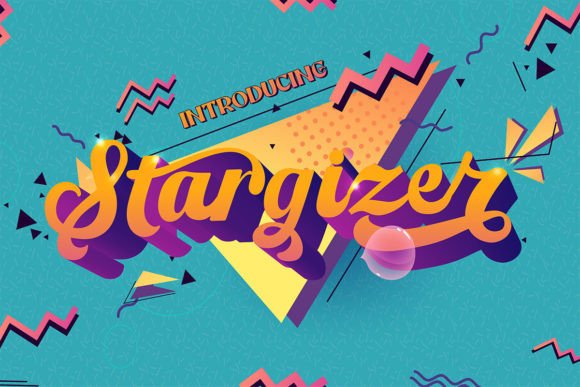
Stargizer Font
Get ready to ignite your creativity with Stargizer Font, the retro-inspired script font that will elevate your designs to the next level! With its captivating handwritten style and timeless appeal, Stargizer is the perfect choice for adding an instant dose of charm and character to your projects.
Immerse yourself in the world of the 60s and 80s as you explore the enchanting curves and strokes of Stargizer. Crafted with meticulous attention to detail, each letter exudes a vintage flair that will make your designs stand out from the crowd. Unleash your imagination and let Stargizer transport you to an era where creativity flourished.
Whether you're crafting logos that demand attention or creating memorable T-shirt designs, Stargizer has got you covered. Its versatility extends to banners, posters, and signs, adding a touch of nostalgic elegance to every project. Unleash your inner artist and let Stargizer inspire your most eye-catching designs yet.
But that's not all! Stargizer's PUA encoding makes it a breeze to access the entire glyph and swash collection. With just a few clicks, you can incorporate intricate details and flourishes into your designs, giving them a truly unique and captivating edge.